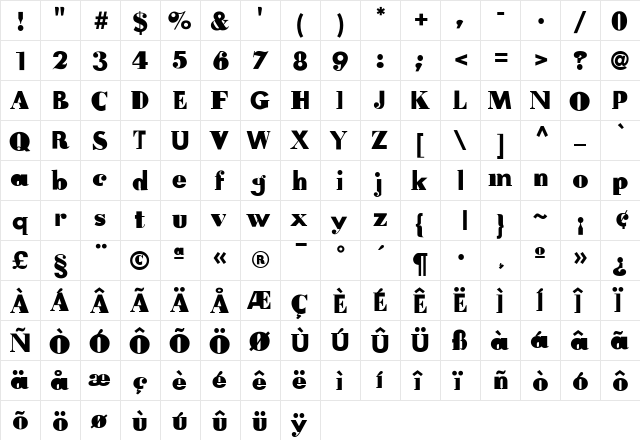
FudoniThree Regular
| Foundry | Fudoni Three> by Max Kisman |
Design Context for FudoniThree Typeface
FudoniThree offers clean, dependable letterforms without strong stylistic allegiance, making it a practical choice for designers who need flexibility.